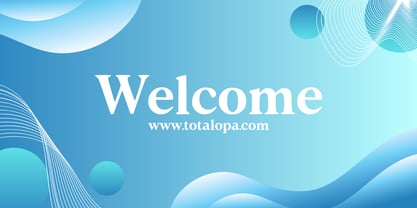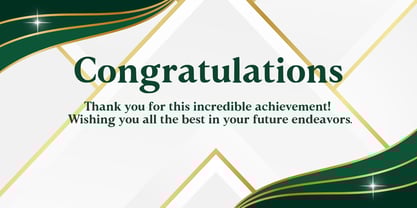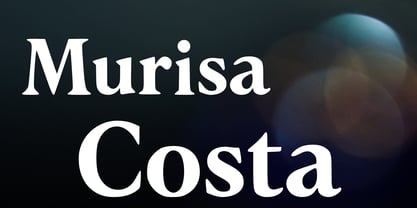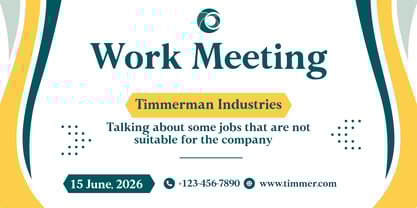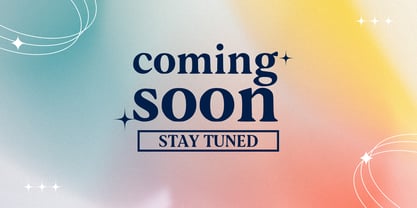
Murisa Costa
The Murisa Costa Font Family was designed by Lili Sadili and published by Murisa Studio. Murisa Costa contains 2 styles and family package options.
✨ Murisa Costa — Where Elegance Meets Edge Step into a world of refined rebellion with Murisa Costa, a serif typeface that dares to be both classic and provocative. Every curve, stroke, and serif is meticulously crafted to evoke timeless sophistication with a bold, contemporary twist. 🖋️ Distinctive Character Murisa Costa isn’t just a font—it’s a statement. With its sharp contrasts and graceful proportions, it commands attention in editorial layouts, luxury branding, and high-impact visual storytelling. 🌍 Multilingual Mastery Designed with precision and care, Murisa Costa supports Eastern European languages, making it a versatile choice for global creatives who refuse to compromise on style or substance. 🎯 Perfect for Visionaries Whether you're designing for haute couture, premium packaging, or cinematic titles, Murisa Costa delivers a visual voice that’s both authoritative and alluring. 💎 Why Settle for Ordinary? Murisa Costa is not for the faint-hearted. It’s for those who value originality, crave distinction, and understand the power of typography to transform perception
Murisa Costa